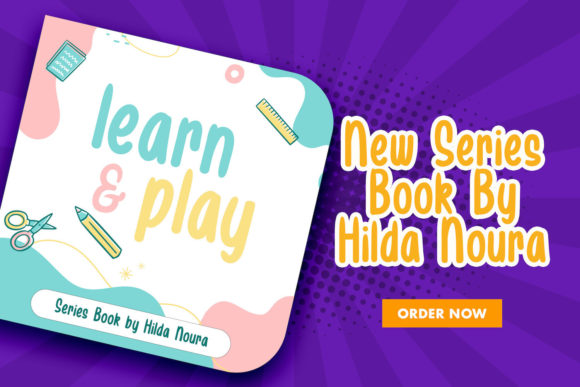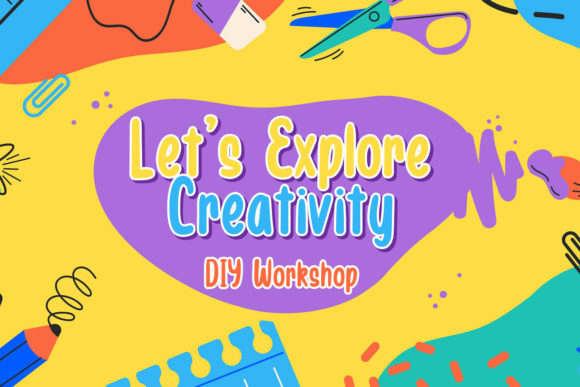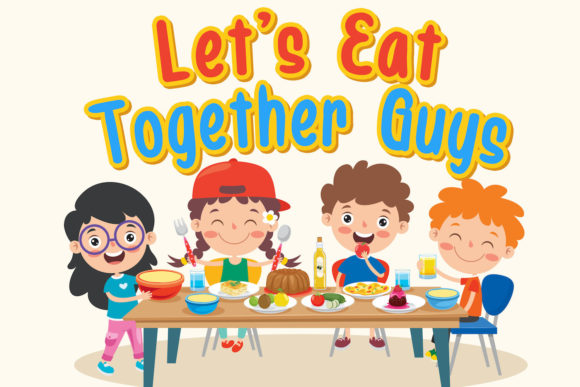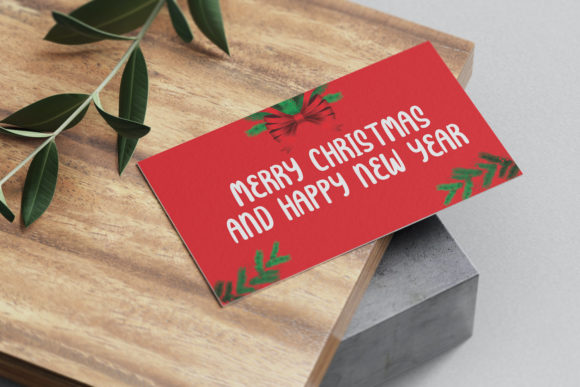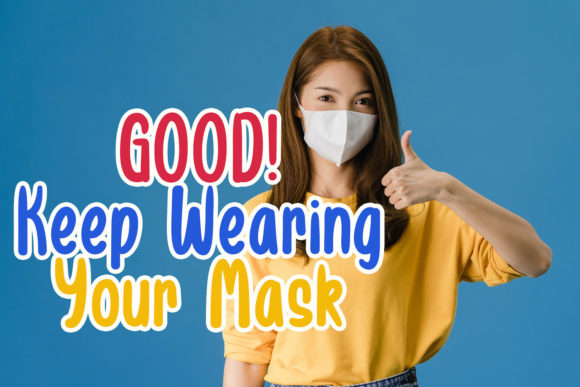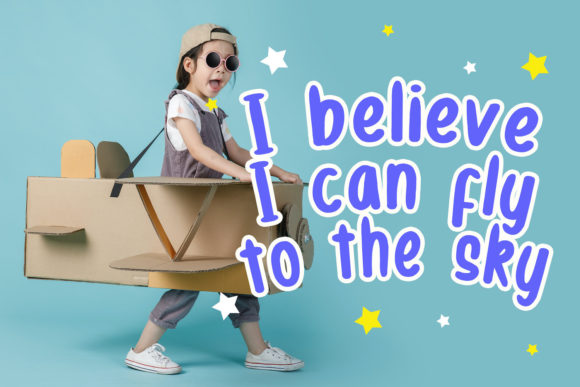
Introduction to Hirochima Font
Hirochima is a bold and trendy looking display font.
Playful and fresh, this font will be a hit for each of your retro projects The only limit is your imagination.
Key Features of Hirochima Font
Why Choose Hirochima Font?